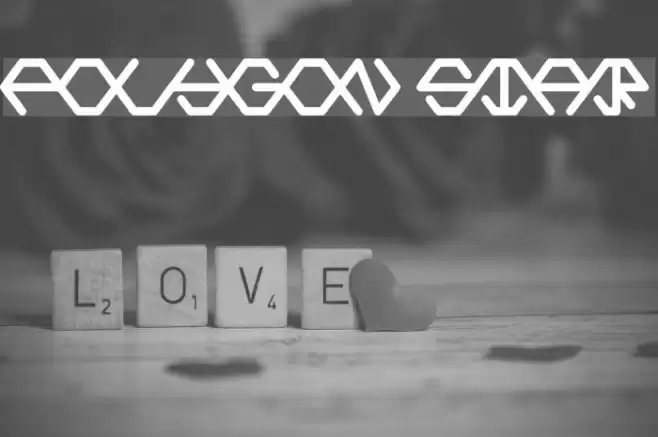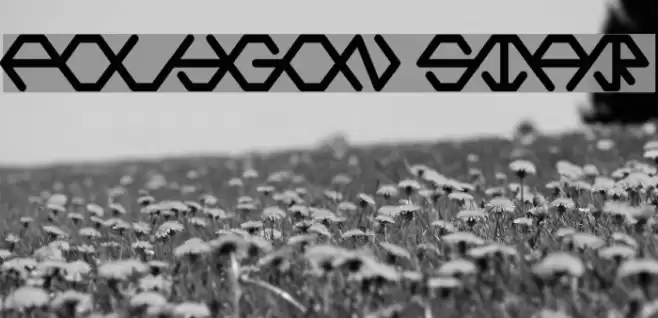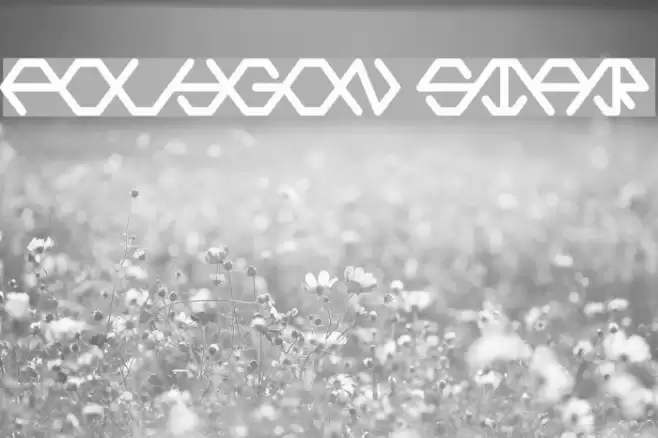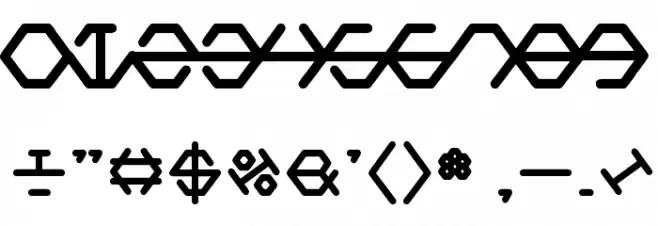
POLYGON STAR Font
POLYGON STAR Description
This font features a geometric and angular design, with each character constructed from interconnected polygonal shapes. The lines are bold and uniform, creating a cohesive and striking appearance. The characters are distinct and easily recognizable, yet they maintain a consistent style throughout. The font's unique structure gives it a futuristic and tech-inspired look, making it stand out in any design. The special characters are equally stylized, incorporating the same polygonal theme, which ensures visual harmony across all elements.
A bold, geometric font with a futuristic, tech-inspired design from Uncategorized fonts.
- Proposed Projects: Ideal for sci-fi themed projects, tech branding, video game titles, and modern posters.
- Overall Style: Futuristic